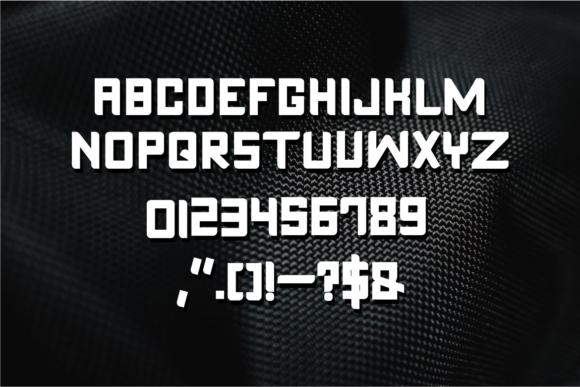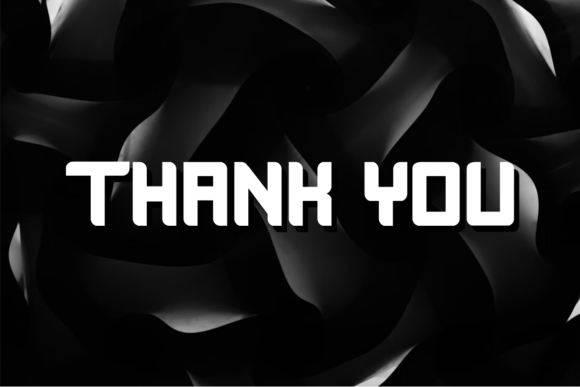
Introduction to Gasakin Font
There’s nothing quite like the thrill of brainstorming ideas for a new design project. The blank canvas stares back at you, begging to be filled with creativity. It’s in these moments that you’re reminded why you became a designer in the first place – to bring your unique vision to life. For those looking to add some bold flair to their next project, we’re excited to introduce you to the Gasakin Font.
This eye-catching display font is perfect for designers who want to make a statement. With its thick, chunky letters, Gasakin Font is sure to grab attention and leave a lasting impression. Whether you’re working on a poster, label, or any other design that requires a high-quality, free download, this font is an invaluable resource for your creative project.
What sets Gasakin Font apart is its versatility and ease of use. With a transparent background, it can be easily layered over any image or design element, allowing you to achieve a cohesive look that’s both stylish and professional.
Key Features of Gasakin Font
• High-quality design resource for creative projects, available for free download
• Unique, modern design with a transparent background, ideal for digital art and graphics
• Includes a range of characters and glyphs, suitable for various languages and scripts
• Perfect for use in logos, branding, and other creative projects where a modern and sleek font is required
Honest Review: Gasakin Font
As a designer, I’m always on the lookout for high-quality design resources to elevate my creative projects. Recently, I came across the Gasakin Font, and I’m excited to share my honest review with you.
What works well: ✨ The Gasakin Font is a beautifully crafted, modern sans-serif font that’s perfect for a variety of design applications. Its clean lines and minimalist aesthetic make it an excellent choice for digital design, including websites, mobile apps, and social media graphics. I also appreciate the transparent background option, which gives me flexibility when working with background images or colors.
• High-quality design: The font is designed with precision and attention to detail, resulting in a high-quality design that’s sure to impress.
Limitations: ⚠️ While the Gasakin Font is an excellent addition to any designer’s toolkit, it’s not without its limitations. The font family is relatively small, with only a few weights and styles available. This may limit its versatility in certain design applications.
Overall, I’m impressed with the Gasakin Font and would recommend it to any designer looking for a high-quality, modern sans-serif font. While it may not be perfect, its strengths outweigh its limitations, making it a valuable addition to any design resource collection.
The Gasakin Font is a high-quality, free download design resource perfect for creative projects that require a unique and stylish look. Its transparent background makes it easy to integrate into various design elements.
Experiment with different font sizes, colors, and styles to create a unique look. Use the Gasakin Font in combination with other design elements to add depth and visual interest to your project.
The Gasakin Font is ideal for creative projects such as logos, social media graphics, and marketing materials. Its high-quality design makes it perfect for presentations, posters, and other visual aids.